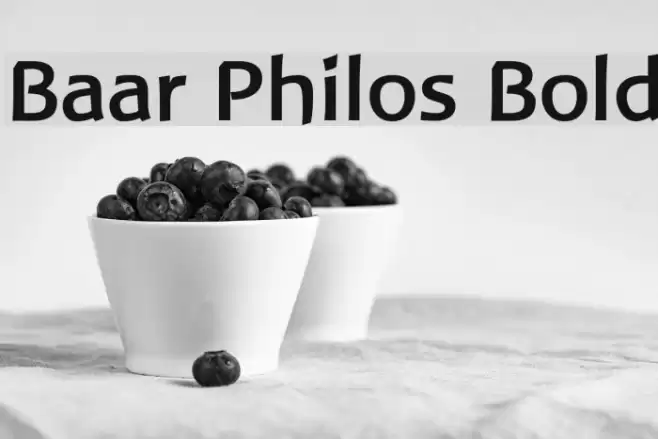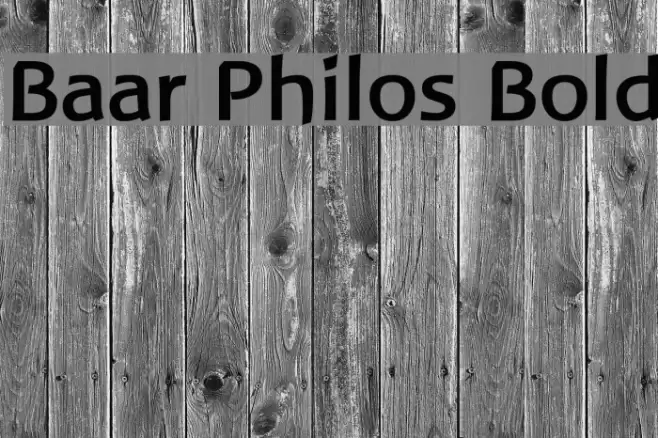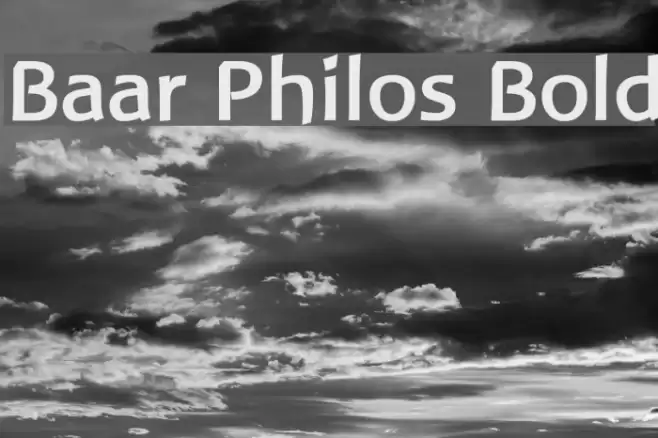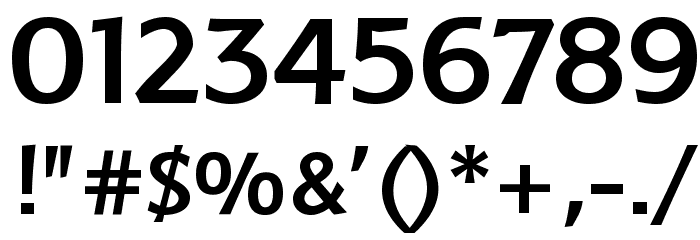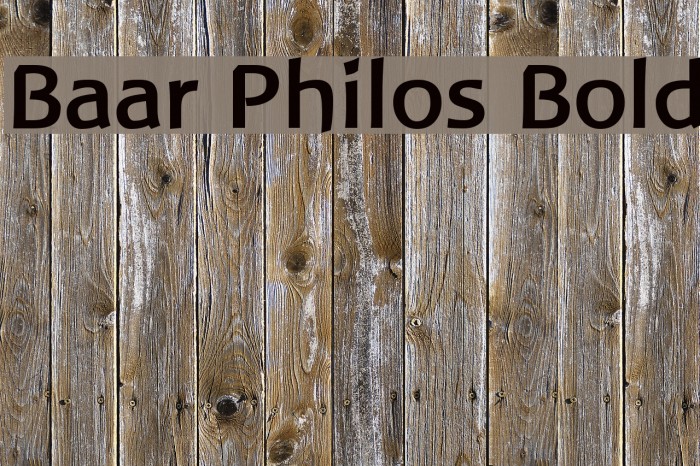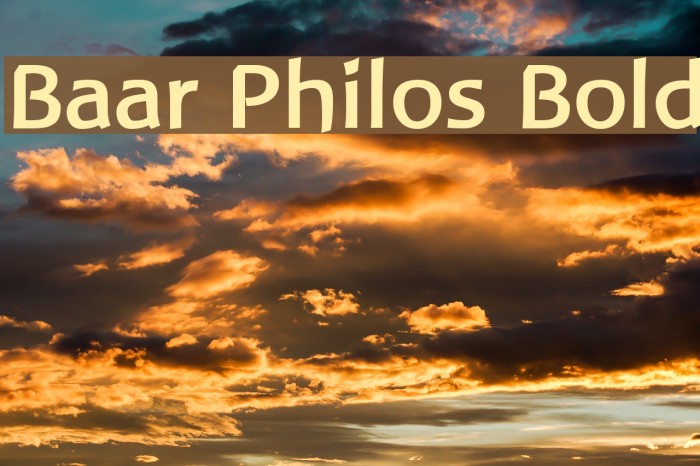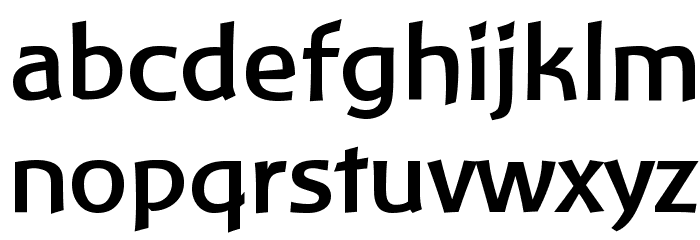
Baar Philos Bold Font
Baar Philos Bold Description
This font exhibits a bold and modern aesthetic with clean, sharp lines and a slightly condensed form. The uppercase letters are strong and assertive, while the lowercase letters maintain a consistent weight, offering a harmonious balance. The numerals are clear and easily readable, making them suitable for various applications. Special characters are designed with precision, enhancing the font's versatility. Overall, this font is well-suited for projects that require a contemporary and professional look.
A bold, modern font with clean lines and a slightly condensed form from Uncategorized fonts.
- Proposed Projects: Ideal for branding, headlines, advertising, and digital media projects requiring a modern and professional appearance.
- Use Case: Headlines, Logos, Branding